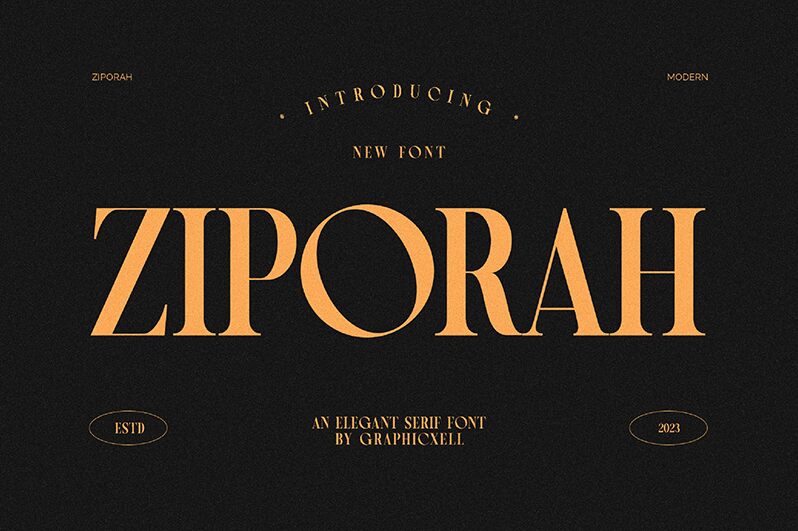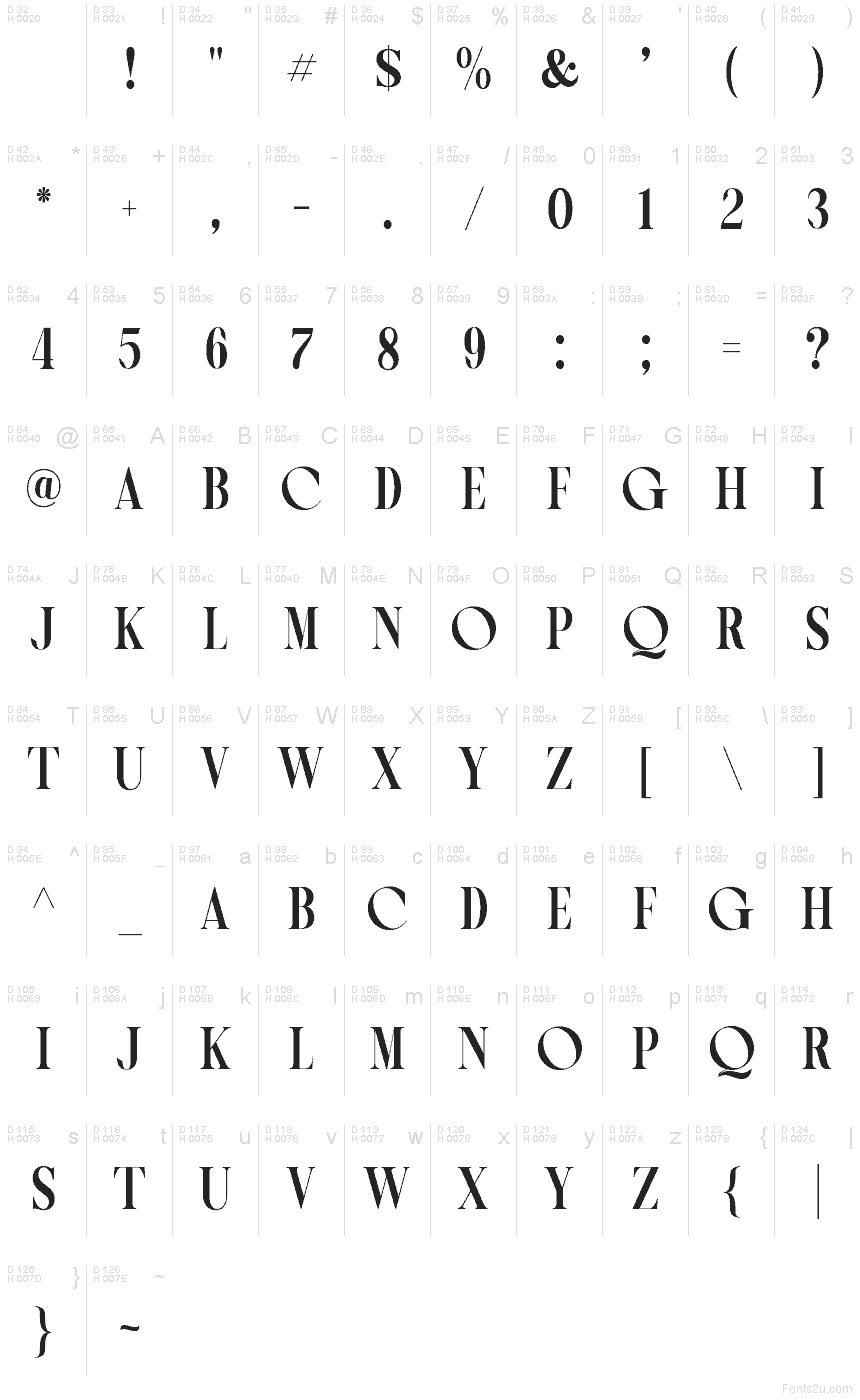
Ziporah
Ziporah font by Graphicxell is a free modern serif typeface. Its signature move is the carved, crescent-like hollows inside the rounds, which make letters feel sculpted rather than printed. Sharp cuts meet inky, full-bodied strokes, creating a rhythm that reads luxe and confident without feeling stiff.
Using Ziporah, headlines snap to attention on fashion branding, beauty packaging, editorial covers, luxury logos, event invitations, and dramatic posters. The tight spacing keeps words cohesive at big sizes, while the bold shapes hold up on screen. This free font pairs beautifully with a neutral sans for body text—think a simple, unadorned grotesque—to let Ziporah do the shining in titles and nameplates.